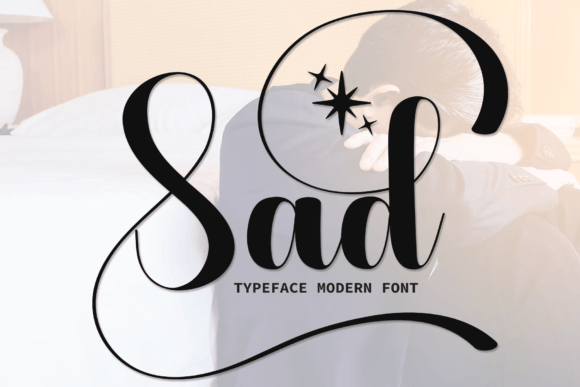
Introducing Sad Font, a script font family that embodies the essence of elegance and sophistication. This flowing handwritten font is the brainchild of andikastudio, a renowned designer with a keen eye for detail. Sad Font is not just a collection of letters; it's an artistic masterpiece that will elevate your projects to new heights of creativity.
Immerse yourself in the world of Sad Font, where every letter dances gracefully across the page, evoking a sense of timeless beauty. Its smooth curves and intricate details add a touch of charm to your designs, making them stand out from the crowd. Whether you're crafting logos, branding materials, invitations, or social media posts, Sad Font will add an unforgettable touch of personality.
With Sad Font, you'll discover a font that's as versatile as it is captivating. Its elegant style lends itself to a wide range of applications, from formal documents to playful invitations. Imagine the impact it will make on your wedding invitations, adding a touch of romance and sophistication to your special day. Or use it to create eye-catching social media posts that will leave a lasting impression on your followers.
But Sad Font isn't just about aesthetics; it's also incredibly user-friendly. Its smooth flow and carefully crafted characters make it easy to read and understand, ensuring that your message is communicated clearly and effectively. Whether you're a seasoned designer or just starting out, Sad Font is the perfect choice for adding a touch of elegance and professionalism to your work.
Don't settle for ordinary fonts that blend into the background. Embrace the beauty and distinction of Sad Font, and watch as your projects transform into masterpieces. Experience the joy of creating with a font that truly captures the essence of your vision.